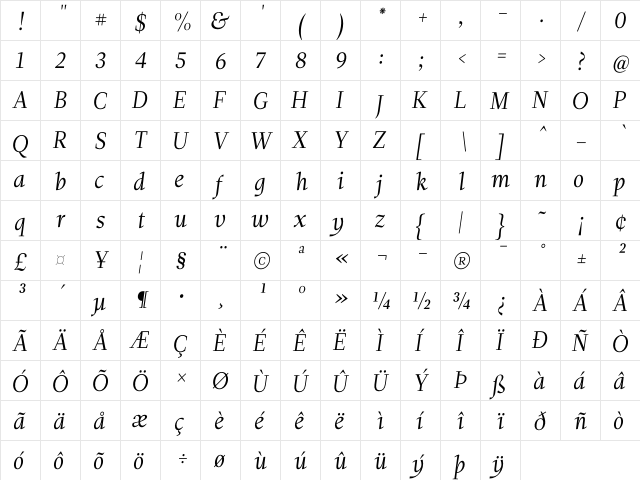
Leitura Italic 1
| Foundry | Dino dos Santos _DSType |
| Designer | Dino dos Santos |
Design Context for Leitura Typeface
Leitura takes a measured approach to typography — its balanced proportions and neutral character make it a reliable workhorse for both digital and print work. Its italic angle brings a sense of urgency and motion to the letterforms.
Pro Tip: Use Leitura for emphasis, pull quotes, and subheadings where its slanted energy can add rhythm to the layout.